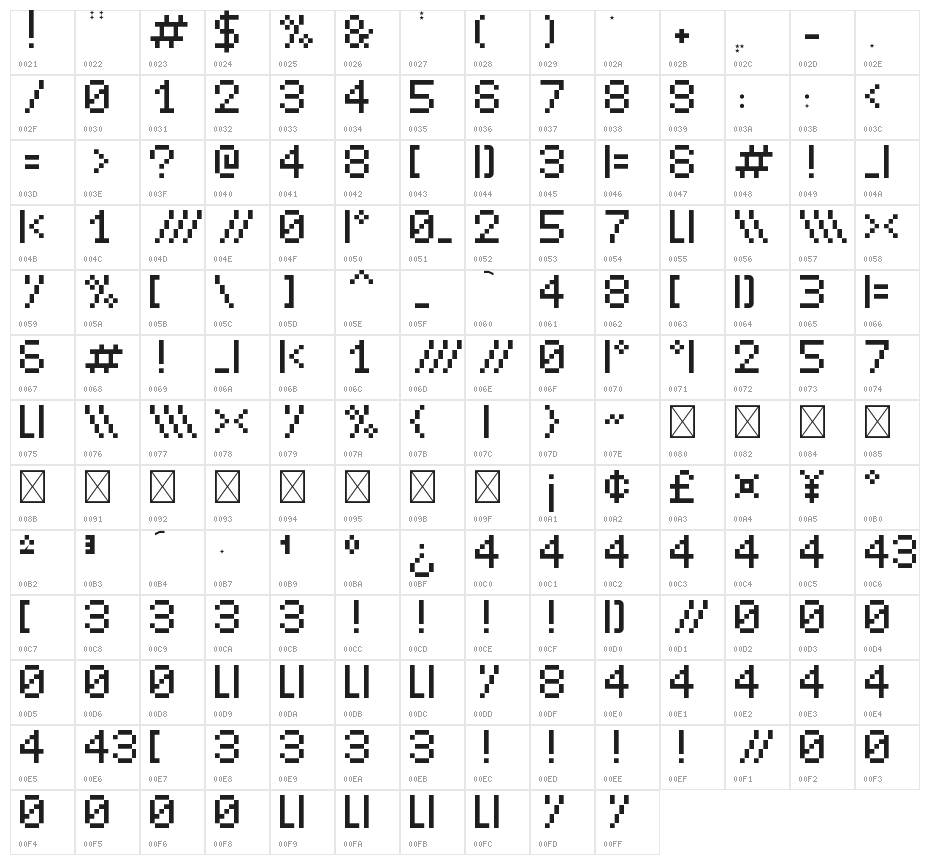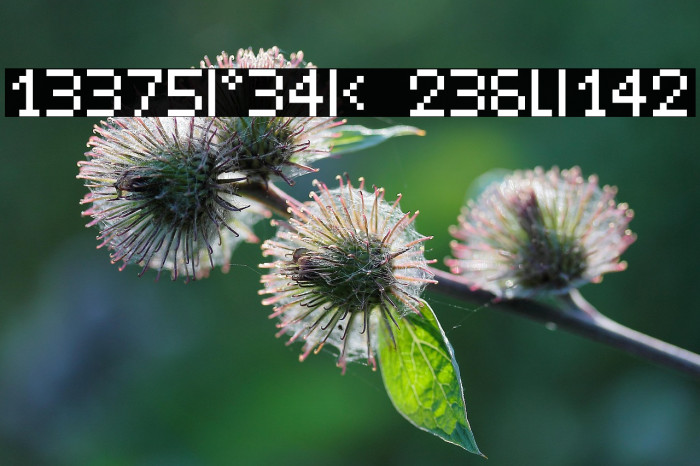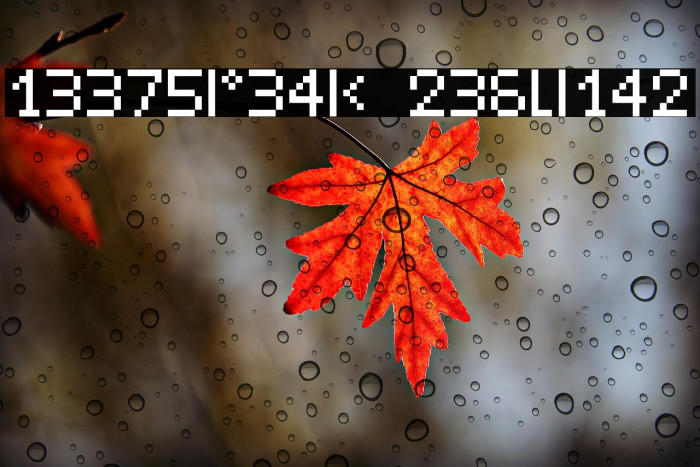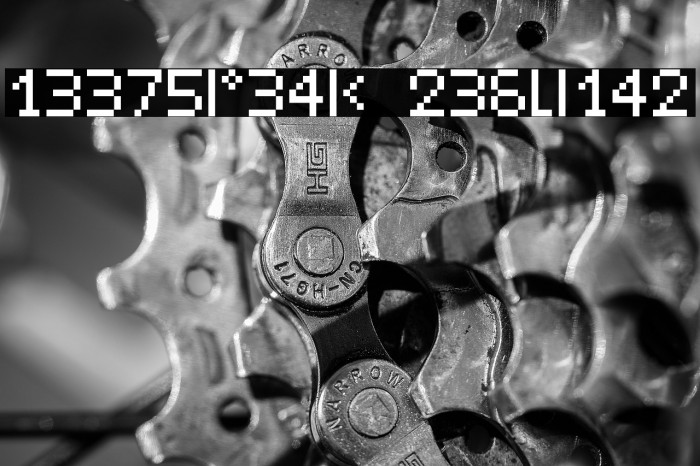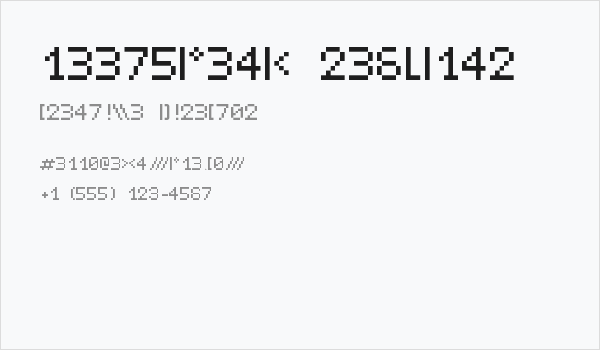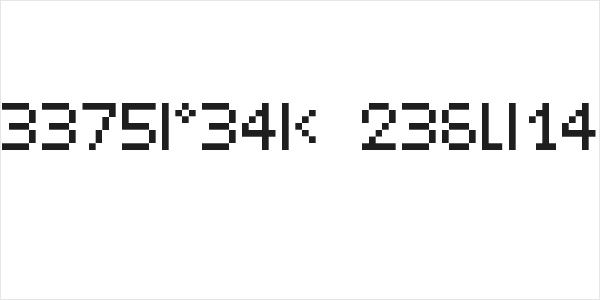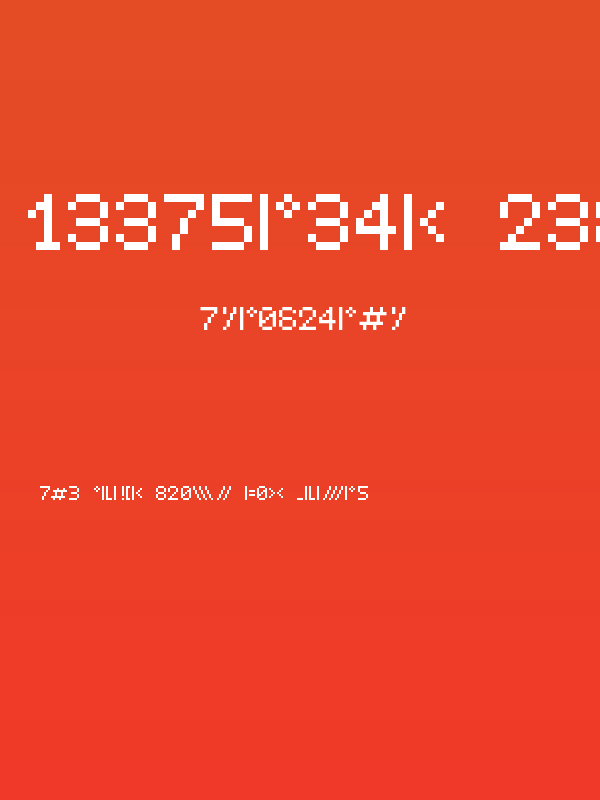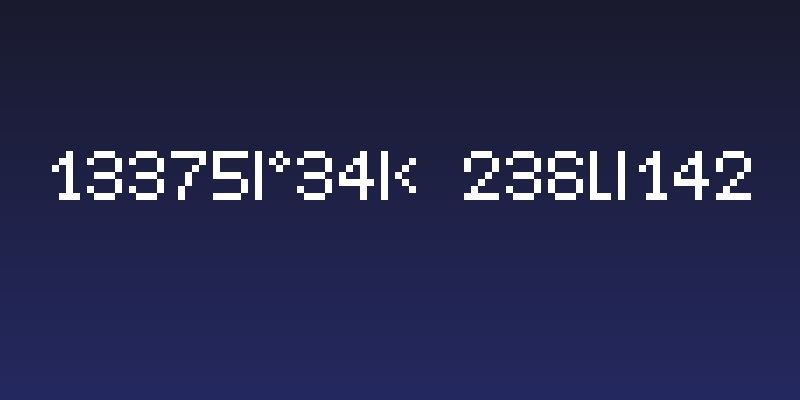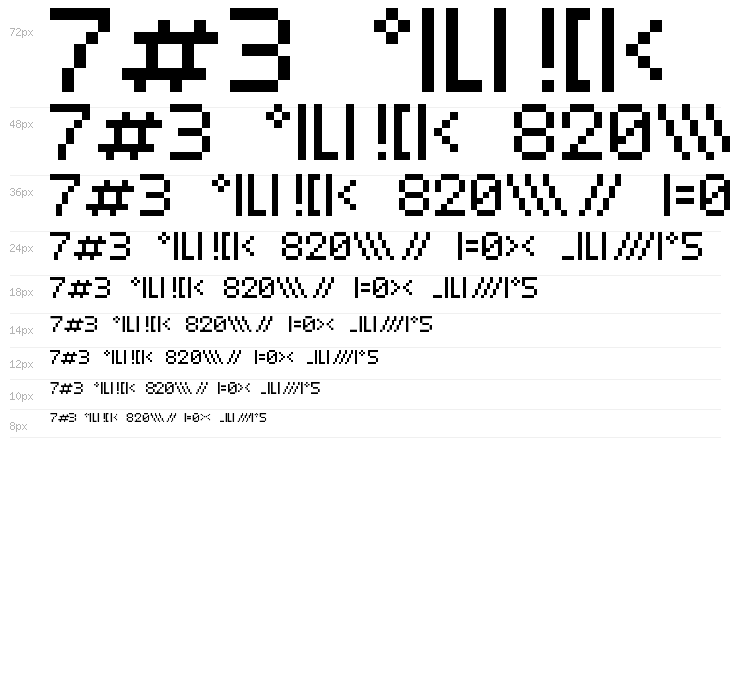
LeetSpeak Regular Font
LeetSpeak Regular Description
This font embodies a pixelated, digital aesthetic reminiscent of early computer graphics and video games. Each character is constructed with a blocky, grid-like structure, giving it a distinctly retro and technological feel. The characters are uniformly spaced, maintaining a consistent width and height, which enhances readability in digital displays. Its geometric precision and lack of curves contribute to a stark, mechanical appearance. The font is particularly effective in conveying a sense of nostalgia for the digital era of the 1980s and 1990s, making it ideal for projects that aim to evoke a vintage tech vibe.
| Use Case | Logos, Headlines, Digital displays |
| Proposed Projects | Ideal for retro video game designs, tech-themed posters, digital art projects, and any creative work that seeks to capture a vintage digital aesthetic. |